Cool Free Fonts Ios 2022
Cool Free Fonts Ios 2022. You can copy and paste these text fonts and use them not just in your instagram bio, but all over. Click to find the best 3 free fonts in the ios style.
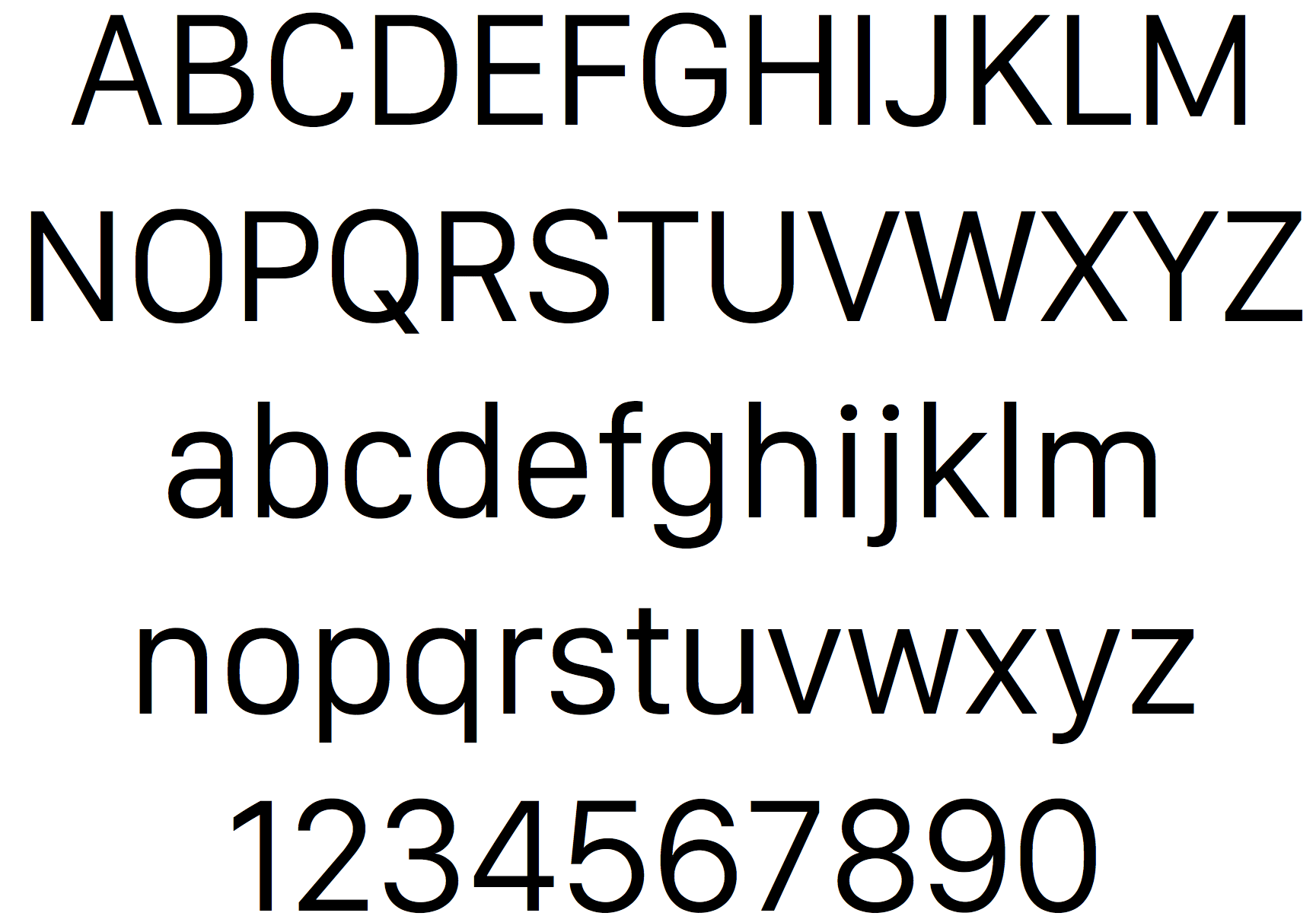
Font gallery preview this app will list down all. Free fonts often have not all characters and. Sf pro features nine weights, variable optical sizes for optimal legibility, four widths, and.